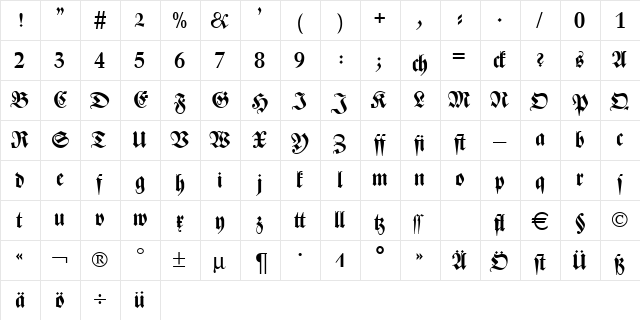
Z690-Blackletter Bold
Design Context for Z690-Blackletter Typeface
Z690-Blackletter channels the dramatic heritage of Fraktur and Gothic scripts, bringing a sense of historical gravitas to any design. The heavy weight commands attention and anchors typographic hierarchies.
A natural fit for music packaging, gothic editorial design, and any project that needs historical weight.
Font Pairing: Pair with a clean neutral sans-serif for body copy to let Z690-Blackletter's character lead without overwhelming the composition.
Pro Tip: Reserve Z690-Blackletter for display and logo use — pair it with a clean sans-serif for body copy to prevent the composition from feeling oppressive.